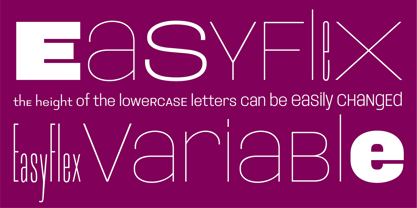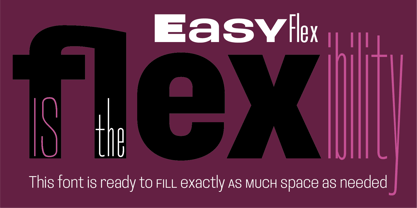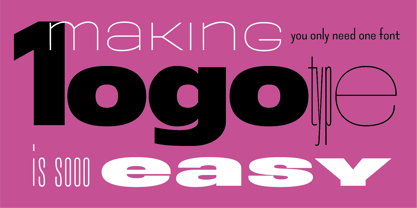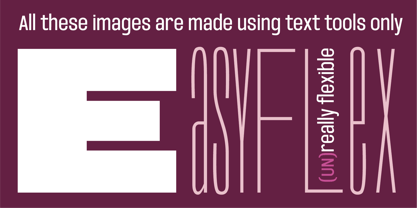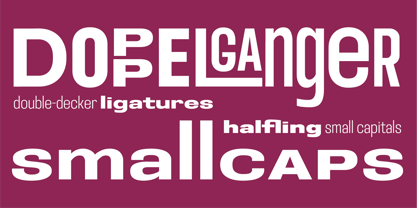
Easy Flex
La familia tipográfica Easy Flex fue diseñada por Yuri Gordon y publicada por Letterhead Studio-YG. Easy Flex contiene 1 estilos. Más información sobre esta familia
EasyFlex is a variable sans-serif font with three axes: weight, width, and lowercase. The first two axes are standard for variable fonts, but the third is rare. The ability to vary lowercase height over a wide range—from a third of the uppercase height to full unicase—is a powerful design tool. We rarely consider how dramatically the feel of a font changes depending on the height of its lowercase letters. To appreciate this capability, you have to try it. EasyFlex fully enables this. I've used EasyFlex in several projects, and each time I've been pleased with its flexibility and precise adjustment. I've also created several logos using it, each time simply by changing the axis parameters and carefully adjusting the lowercase height. EasyFlex includes Cyrillic characters, small caps, and lowercase numbers.